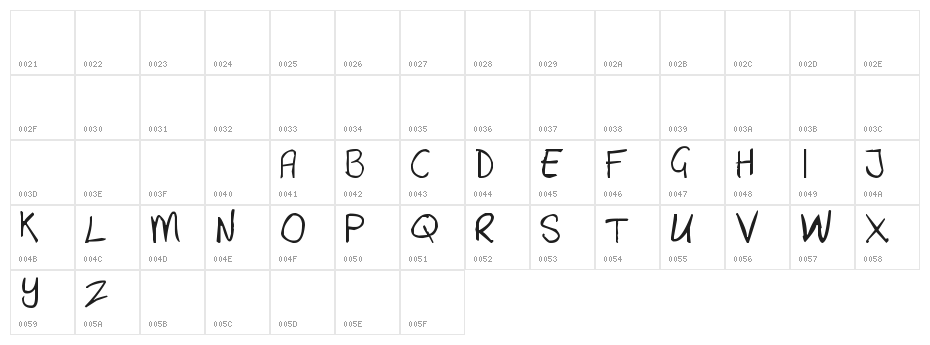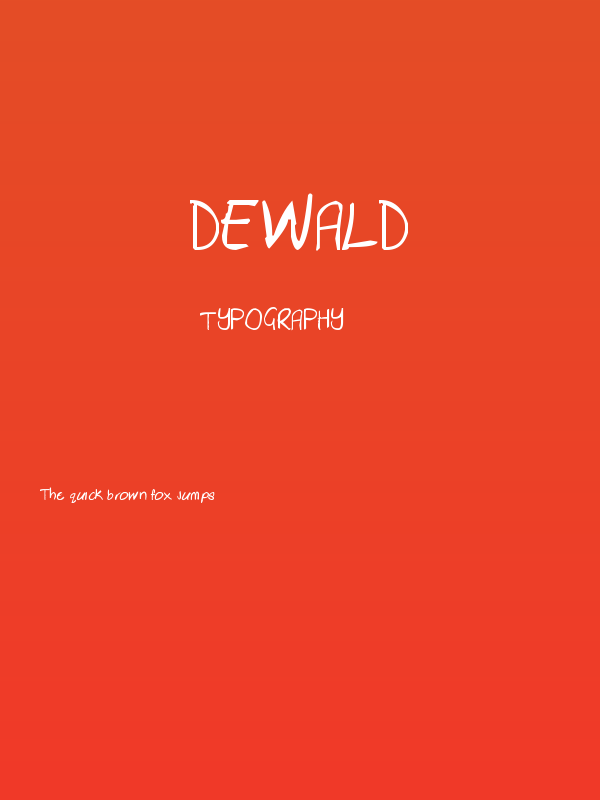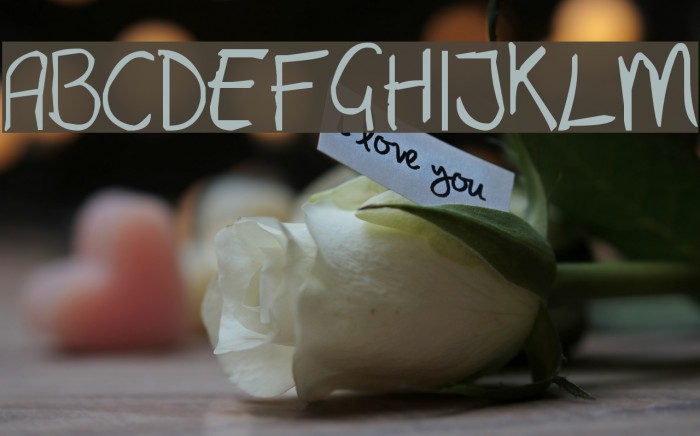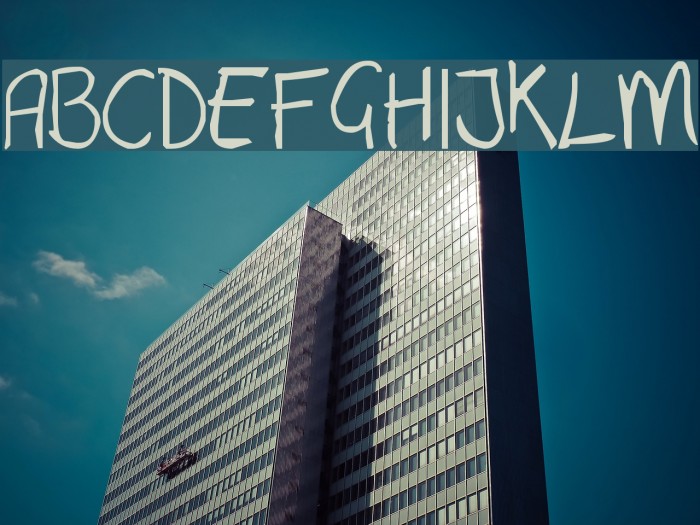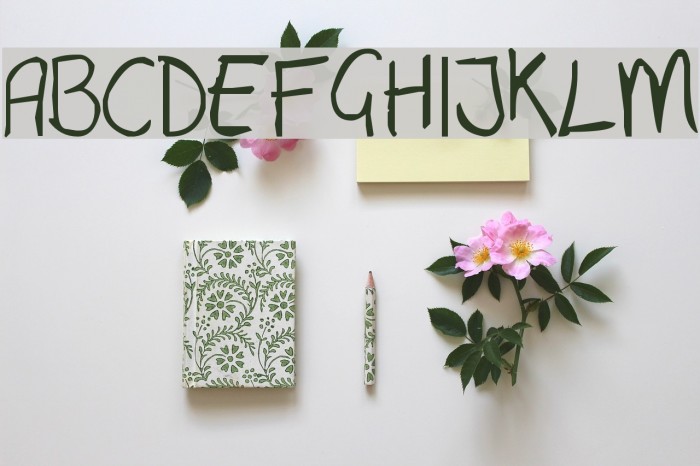
Dewald Font
Dewald Description
This font features a playful and casual handwritten style, characterized by its fluid and dynamic strokes. The letters exhibit a natural, organic flow, with varying stroke widths that add a sense of movement and personality. The uppercase letters are bold and prominent, while the lowercase letters maintain a consistent, approachable feel. The font's informal nature makes it ideal for projects that require a personal touch or a relaxed aesthetic. Its unique character shapes and slightly irregular baseline give it a charming, handcrafted appearance.
| Overall Style | Casual, Playful |
| Use Case | Headlines, Informal text, Creative projects |
| Proposed Projects | Ideal for greeting cards, invitations, personal branding, and creative projects that benefit from a handwritten touch. |